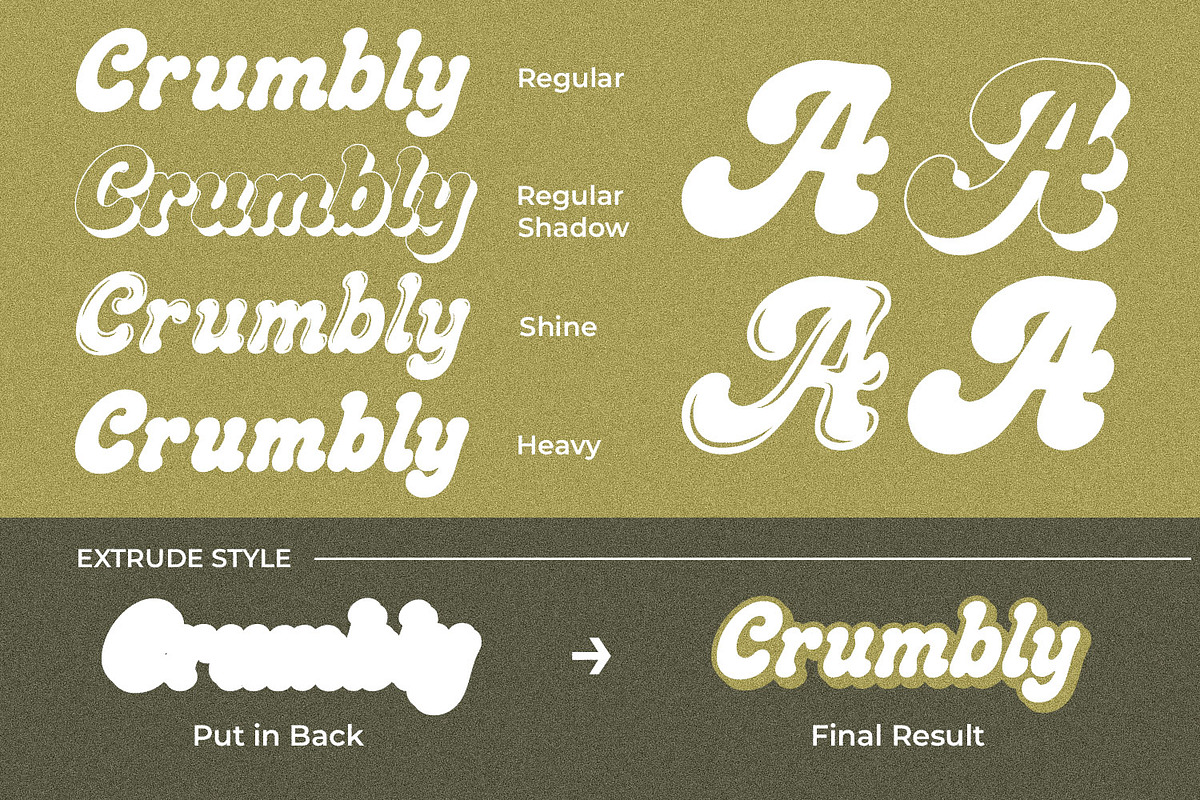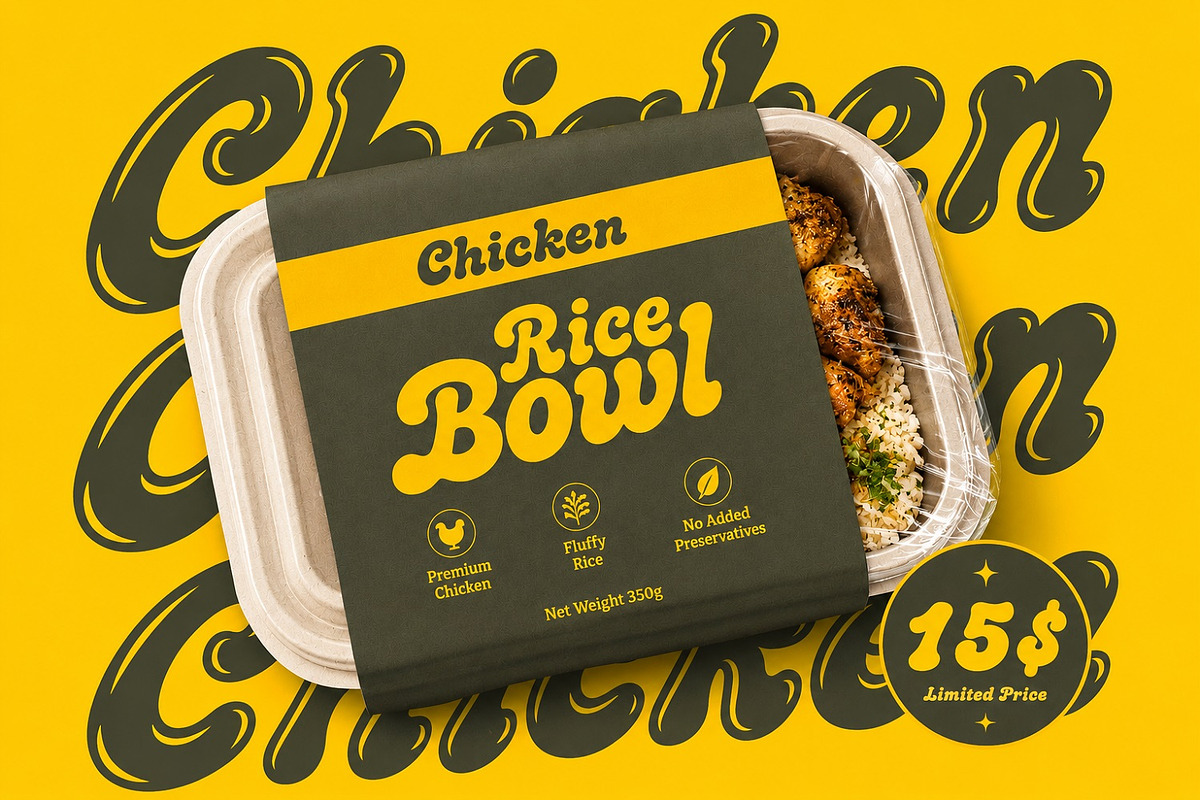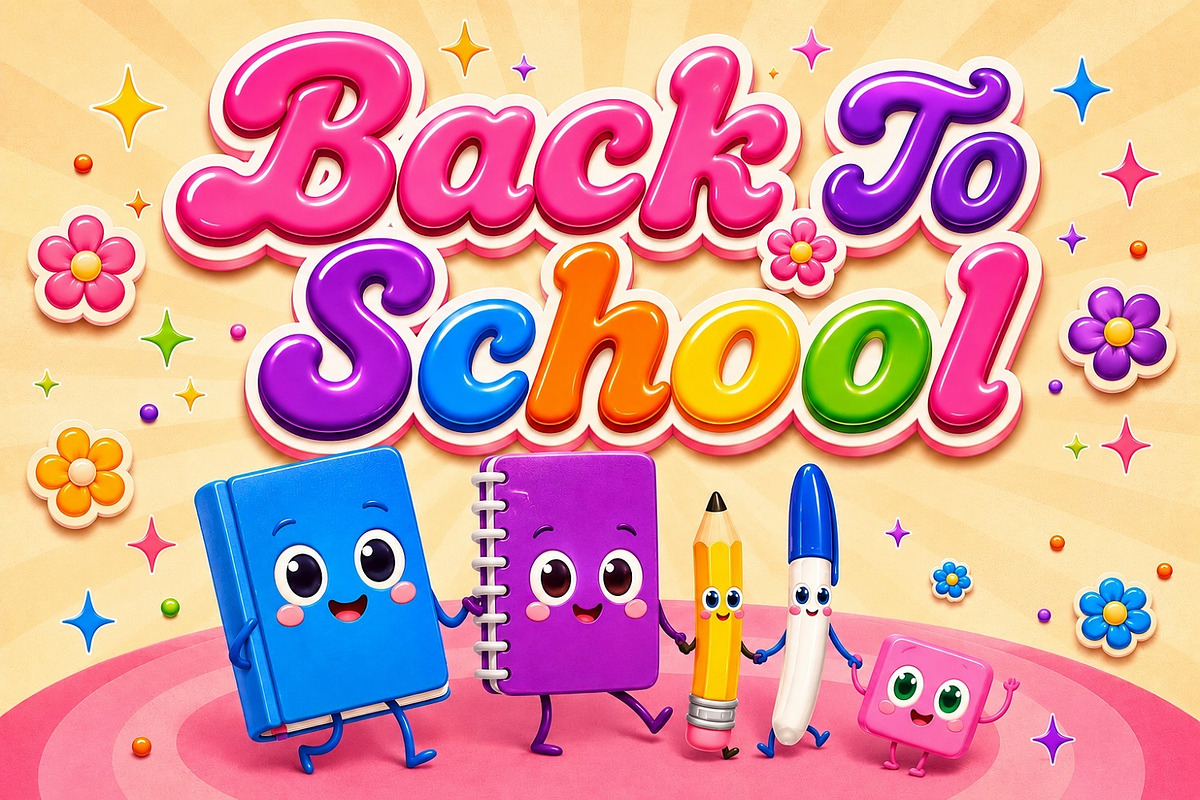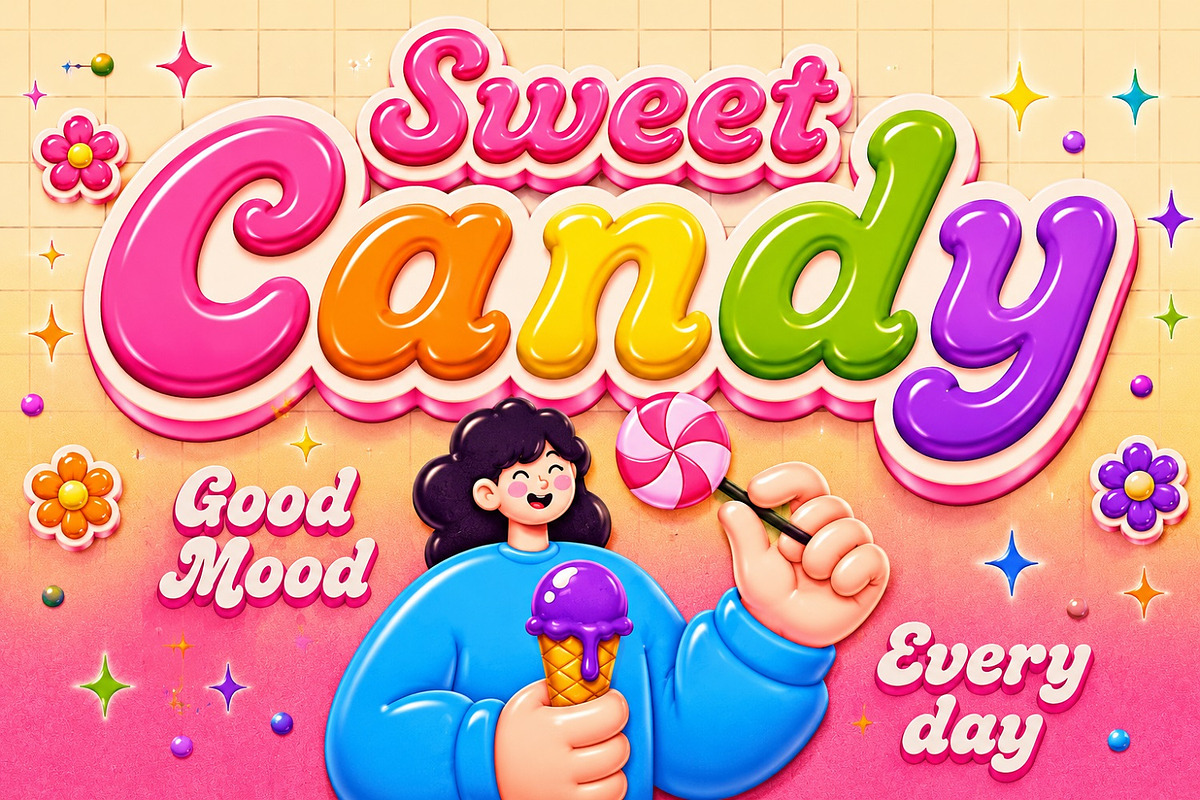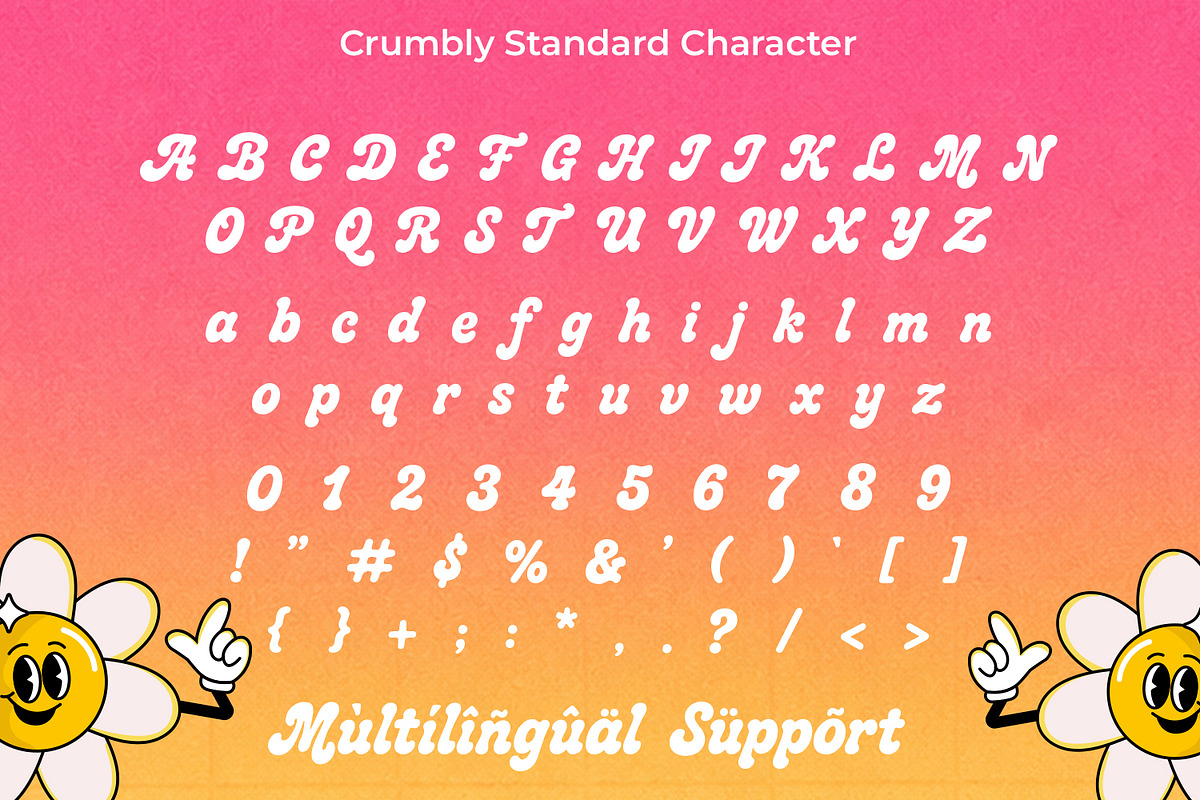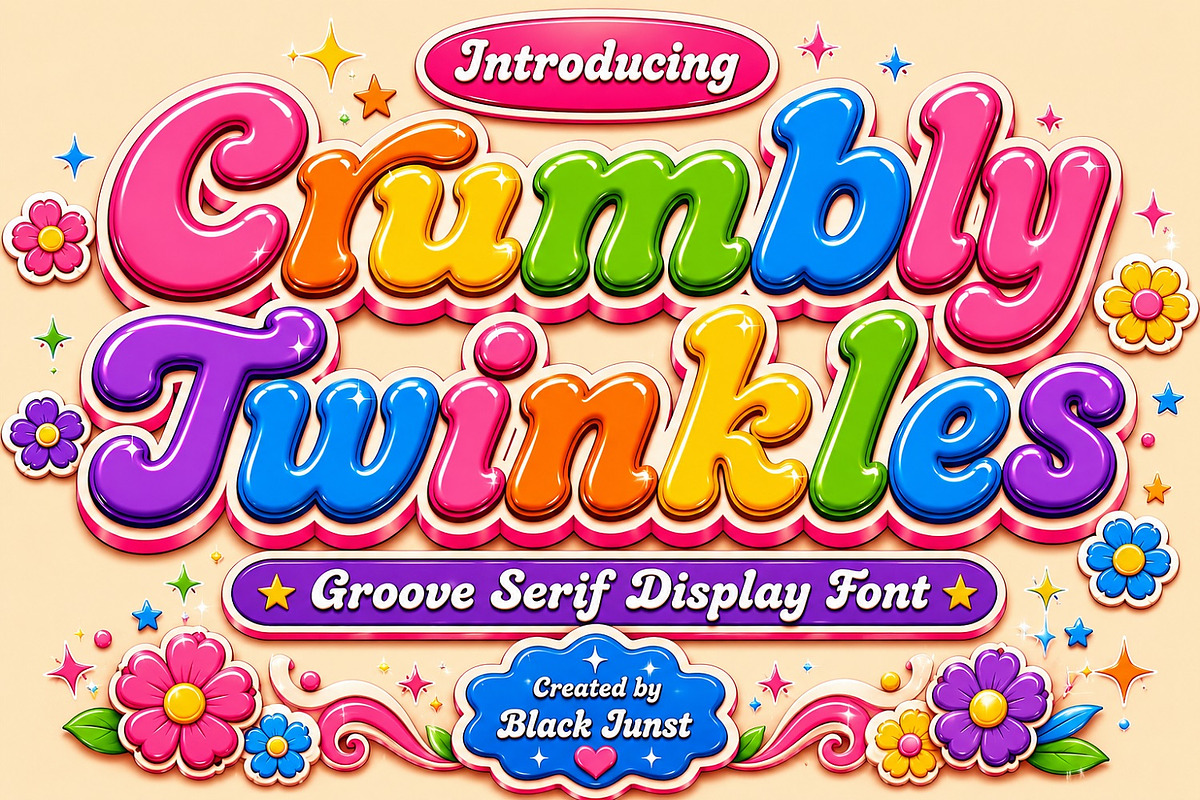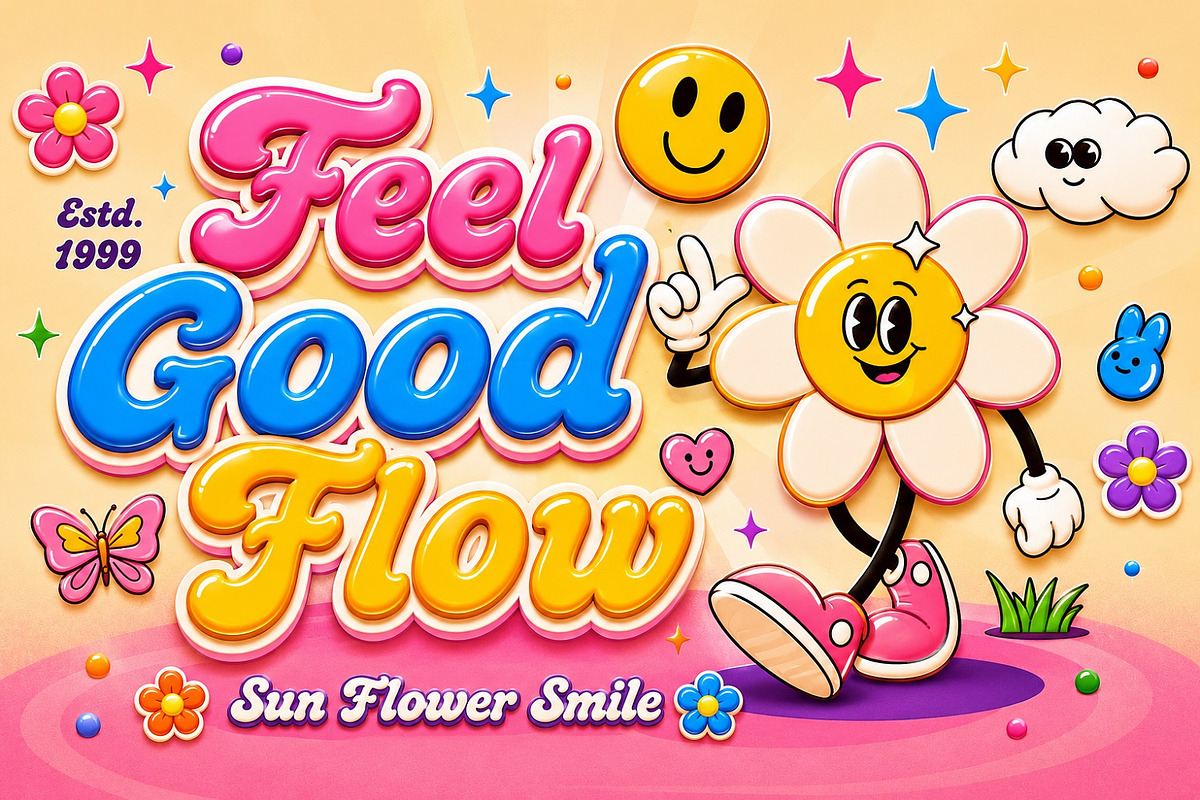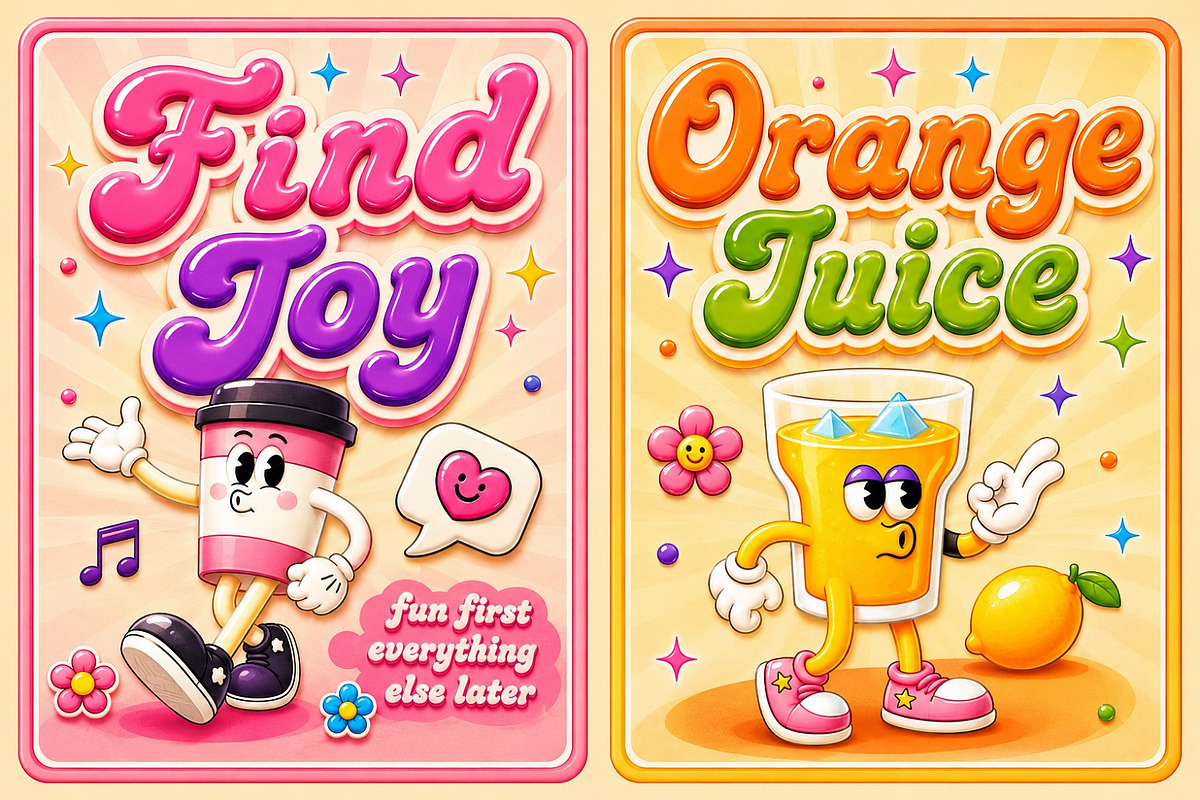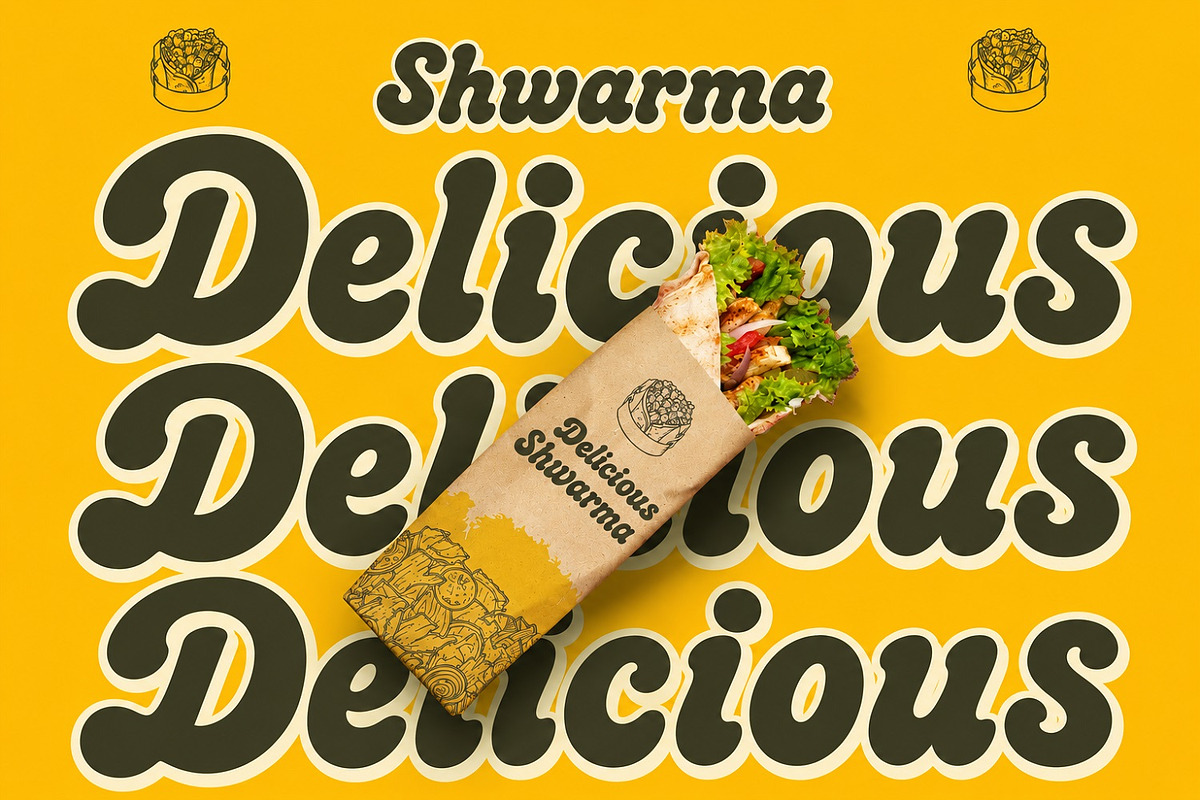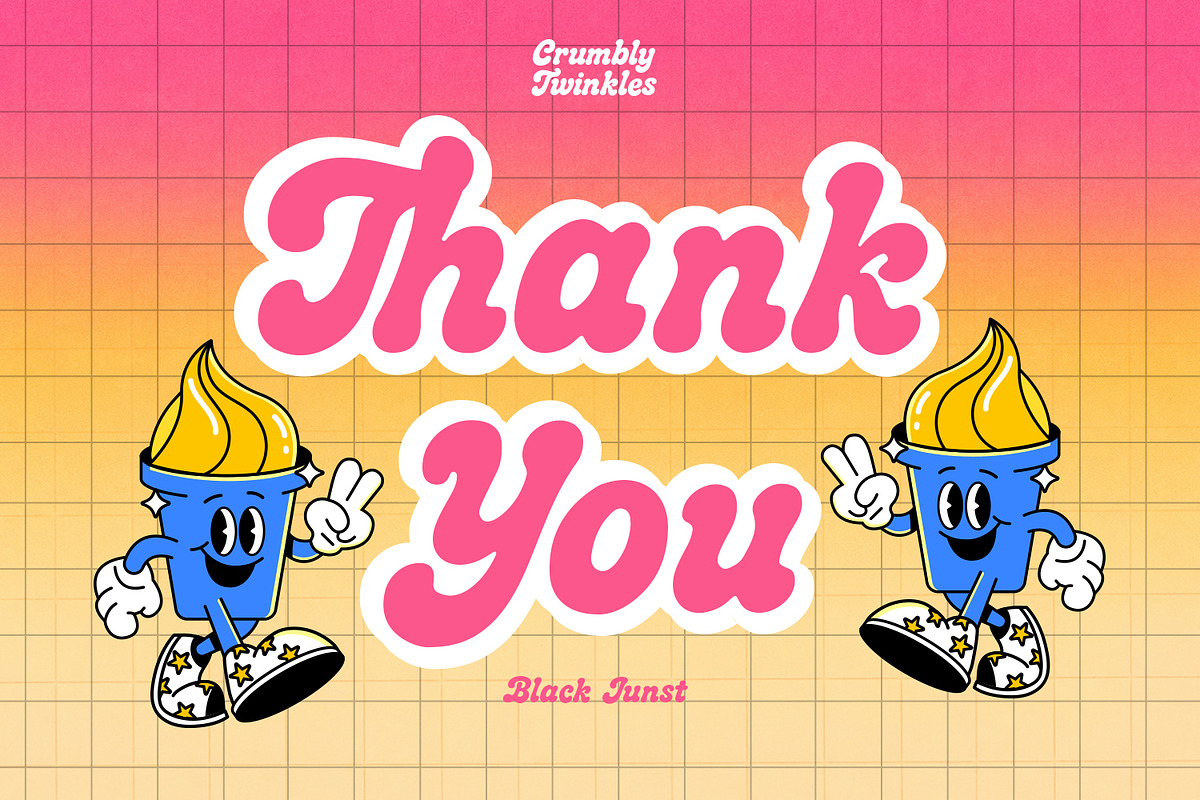
Crumbly Twinkles - Groovy Playful
Crumbly Twinkles is a joyful 16-style display font family that blends retro groovy charm, chunky bubble shapes, and playful serif details into one eye-catching type system. Designed to make every headline stand out, this font family delivers a nostalgic 70s-inspired aesthetic with a fresh modern twist, making it perfect for designers, branding projects, and creative businesses looking for typography with personality.
With 16 versatile styles, Crumbly Twinkles gives you the flexibility to build vibrant designs for every occasion. Whether you're creating logos, product packaging, children's branding, café menus, YouTube thumbnails, social media graphics, book covers, posters, greeting cards, stickers, apparel, or merchandise, this family offers endless creative possibilities while maintaining a consistent visual identity.
Every letter has been carefully crafted with smooth curves, bold proportions, and playful rhythm to ensure excellent readability while keeping a distinctive handmade character. The complete family allows you to mix and match styles effortlessly, helping you create premium typography compositions that attract attention and leave a memorable impression.
Branding Identity
Food & Beverage Branding
Kids Products
Toy Packaging
Retro Posters
Magazine Headlines
Social Media Content
YouTube Thumbnails
Stickers
T-Shirts
Greeting Cards
Invitations
Quotes
Craft Projects
Website Headers
Advertising
Bring cheerful energy, nostalgic vibes, and bold personality into your next project with Crumbly Twinkles—a complete retro display font family designed to help your creative work stand out and become unforgettable.